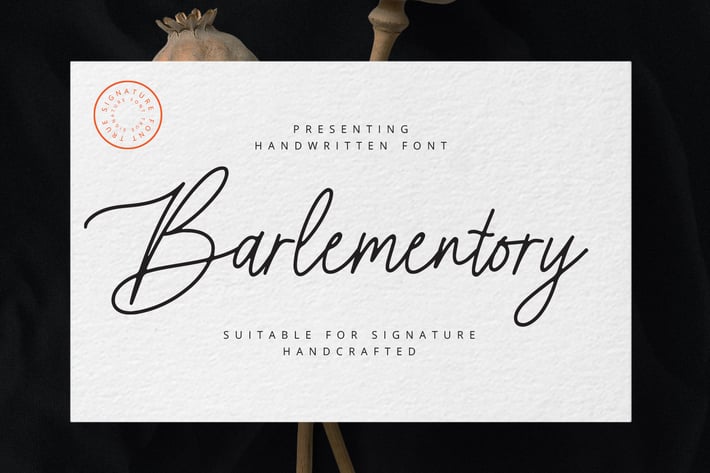
Barlementory Font
This font is suitable in many ways for your latest projects. Perfect for logos & branding, photography, invitations, watermarks, advertisements, product designs, stationery, wedding designs, labels, product packaging, special events and much more.